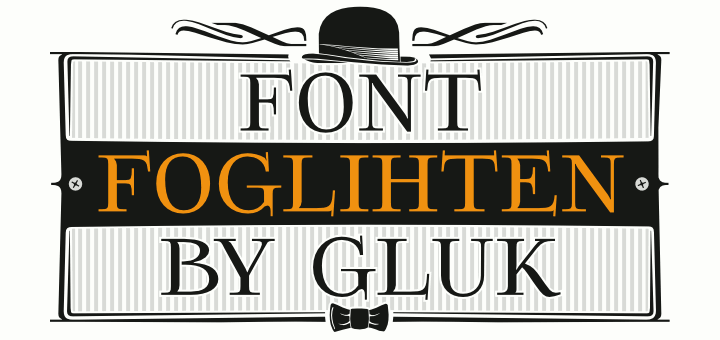
Free Foglihten Font
Take a look at this gorgeous free foglihten font. Font Space has created this amazing and beautiful free font. Showcase your designs like a graphic design pro by adding a new touch with this fancy font.